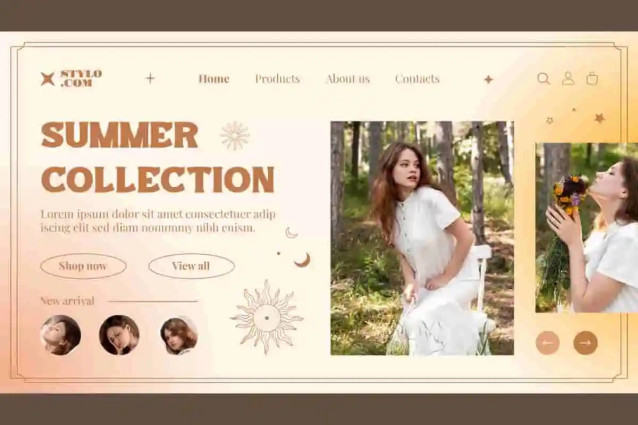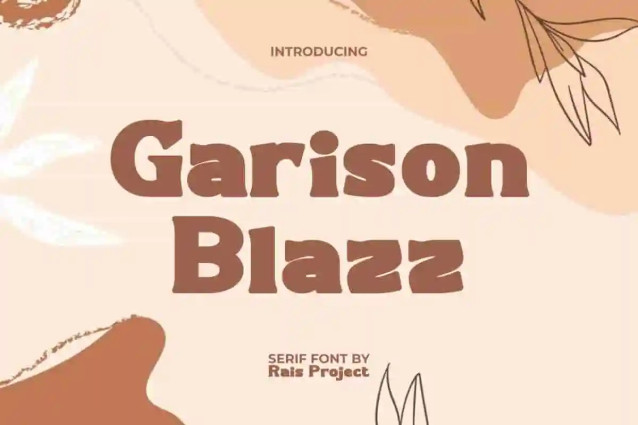
Garison Blazz Font is a playful cute adorable serif font with a bulky shapes by RaisProject. This font has thick and short characters so it has a charming appearance and can be paired with other types of fonts. It will look good on invitation, stationery, poster, custom design, product packaging, quotes, signage, brand image, advertisement, label, marketing material, website page, and more!
Introducing Garison Blazz Display Font – a bold, powerful, and modern typeface designed to make your projects impossible to ignore. With its sharp edges, striking curves, and dynamic display style, Garison Blazz delivers energy and confidence in every letter. Perfect for gaming graphics, sports branding, event posters, advertising campaigns, and digital content, this font ensures your designs stand out with authority.
Garison Blazz Display Font is built for projects that need strength and impact. Its commanding letterforms are ideal for logos, merchandise, promotional materials, product packaging, and social media visuals. Whether you’re designing for esports, motorsports, fitness, or lifestyle brands, Garison Blazz brings a fearless and modern touch that resonates with audiences.